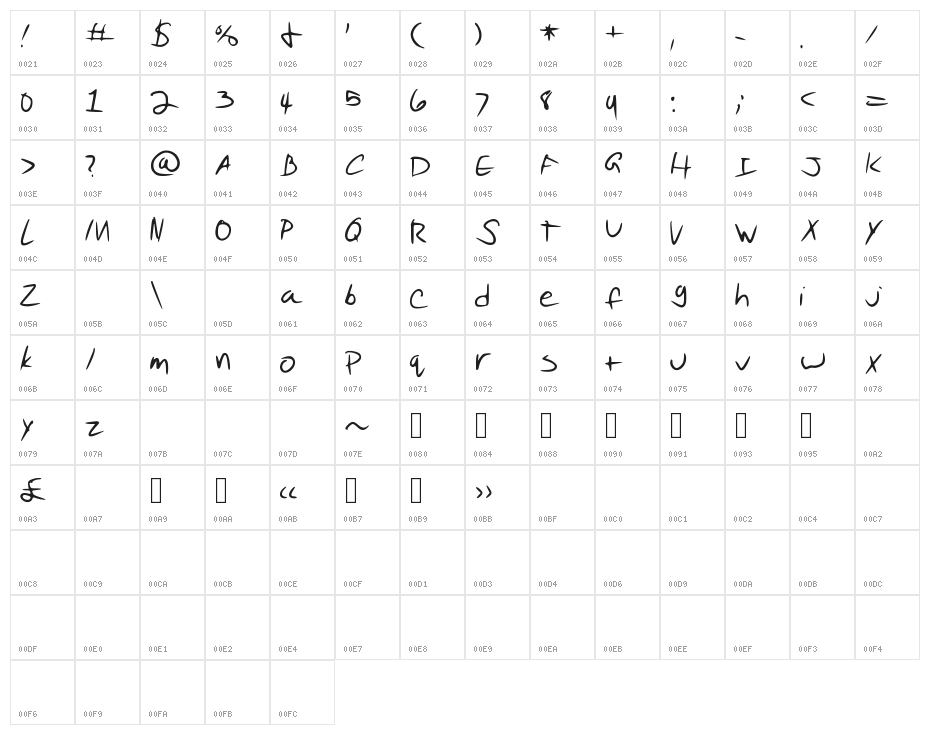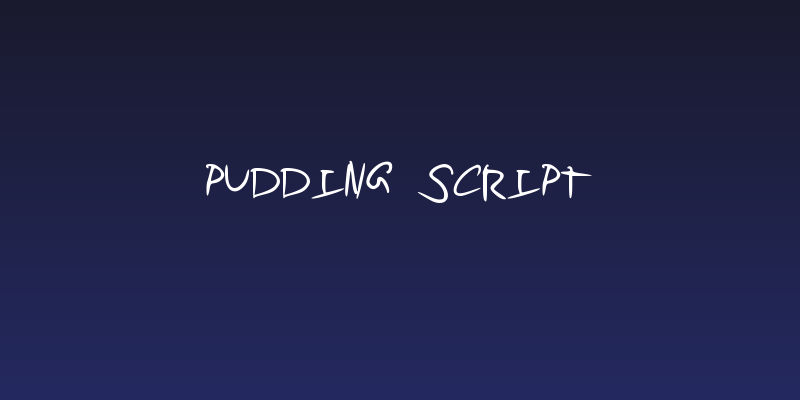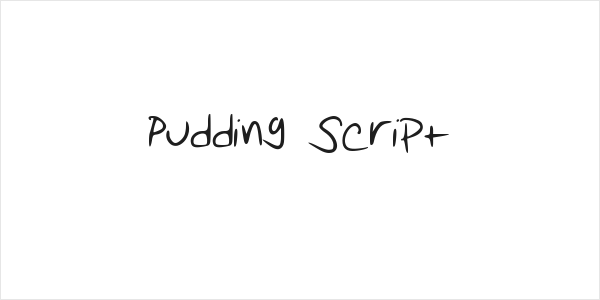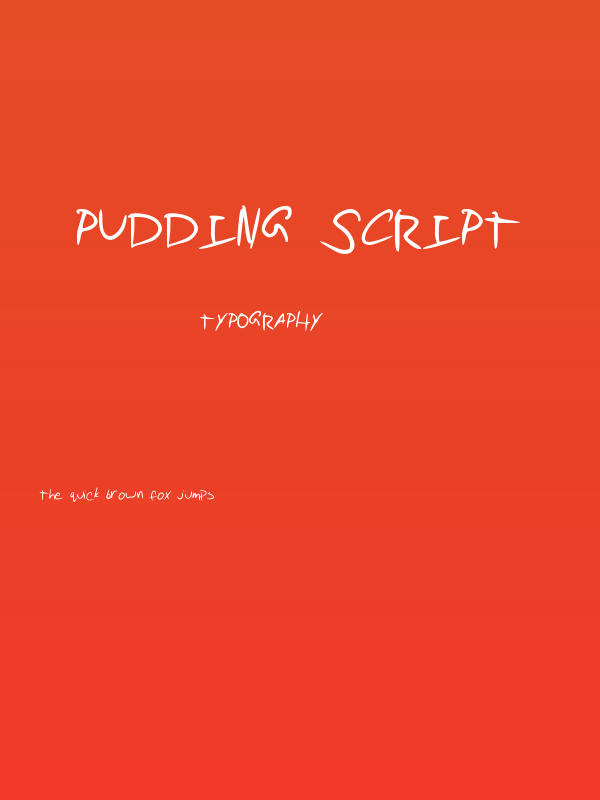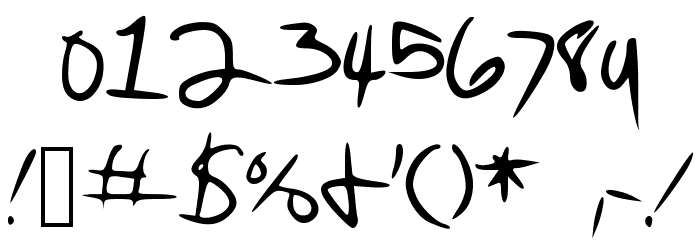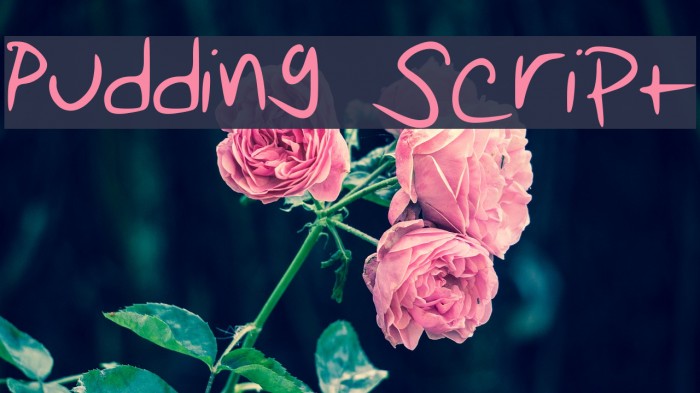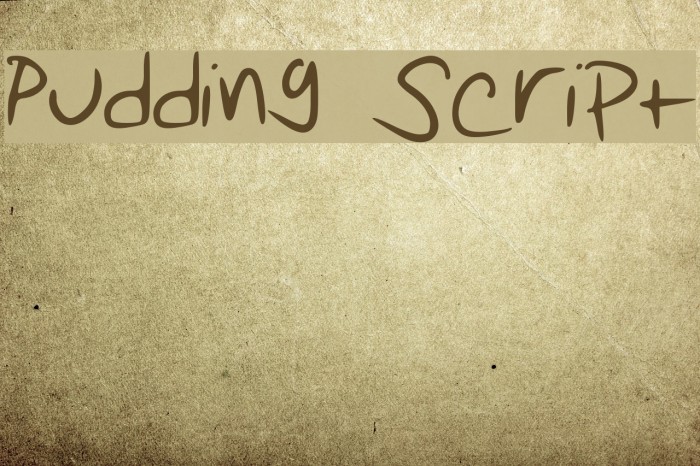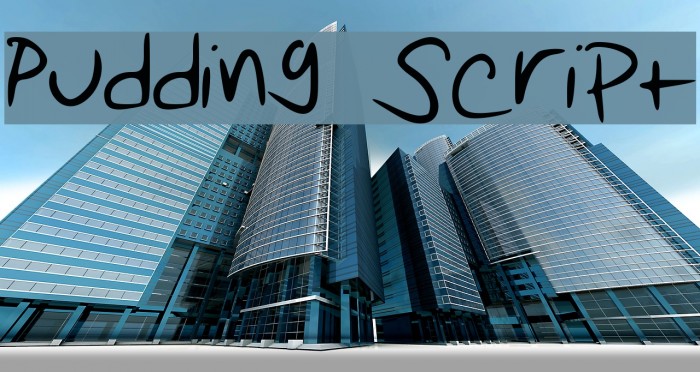
Pudding Script Font
Pudding Script Description
This font features a playful and energetic script style, characterized by its dynamic and fluid strokes. The letters are slightly slanted, giving a casual and informal appearance. The uppercase letters are bold and prominent, while the lowercase letters maintain a consistent flow, enhancing readability. The numbers and special characters follow the same lively style, making them stand out. The overall design is reminiscent of handwritten notes, adding a personal touch to any project.